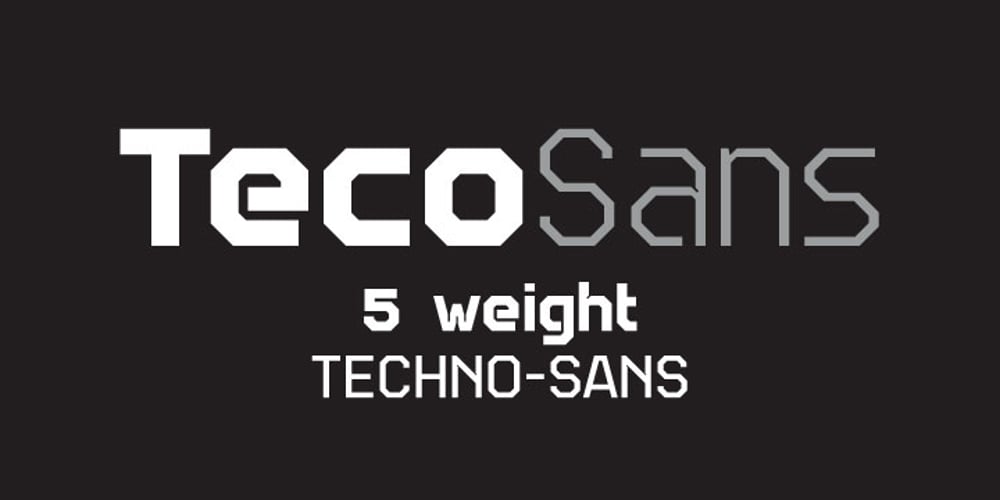
TecoSans Font Family was designed by Valery Zaveryaev and published by Gaslight. TecoSans contains 6 styles and family package options. Another techno-sans with interesting compensators, inspirit by Alexander Rodchenko works. Clean, strong, ultra here and there. Plus free symbol typeface for supporting in various situation.